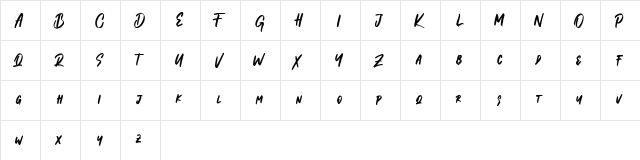
Mathew Rohas Free Regular
| Foundry | Maulana Creative |
| Designer | MaulanaCreative |
Design Context for Mathew Rohas Free Typeface
Mathew Rohas Free is a composed and adaptable typeface that performs quietly and consistently across a wide range of design contexts.